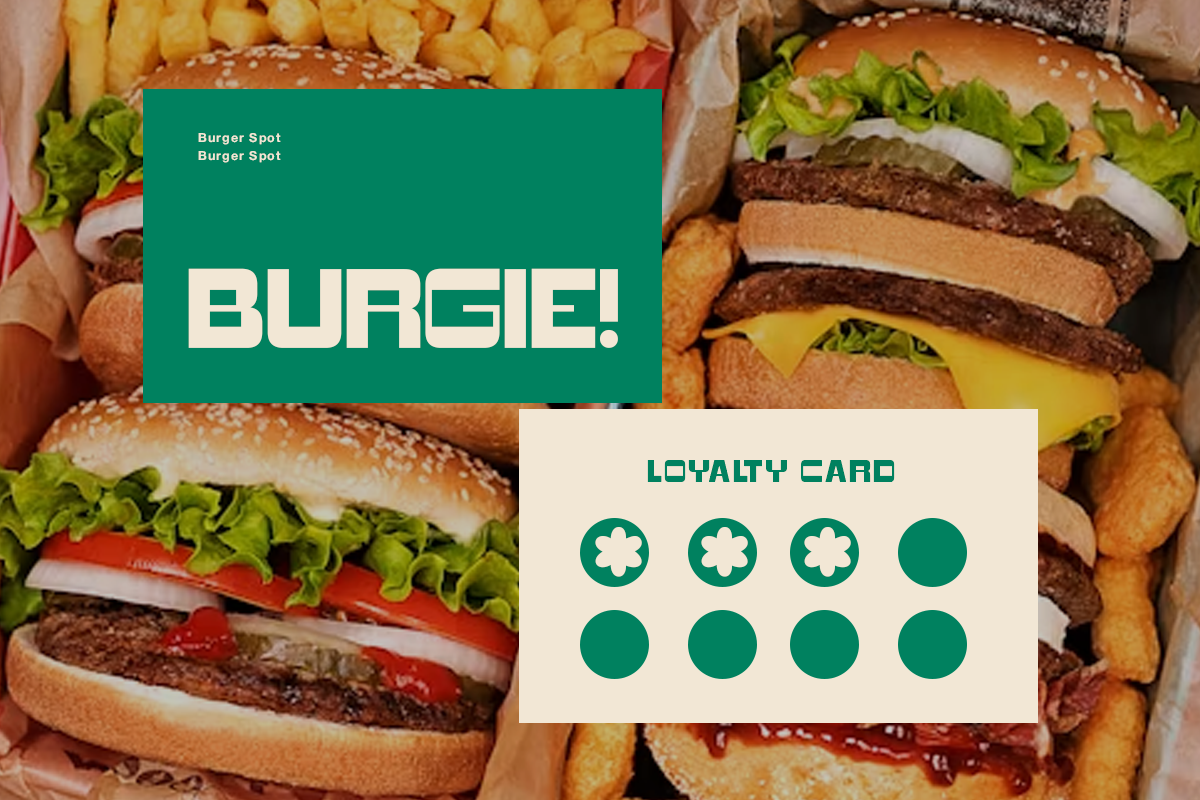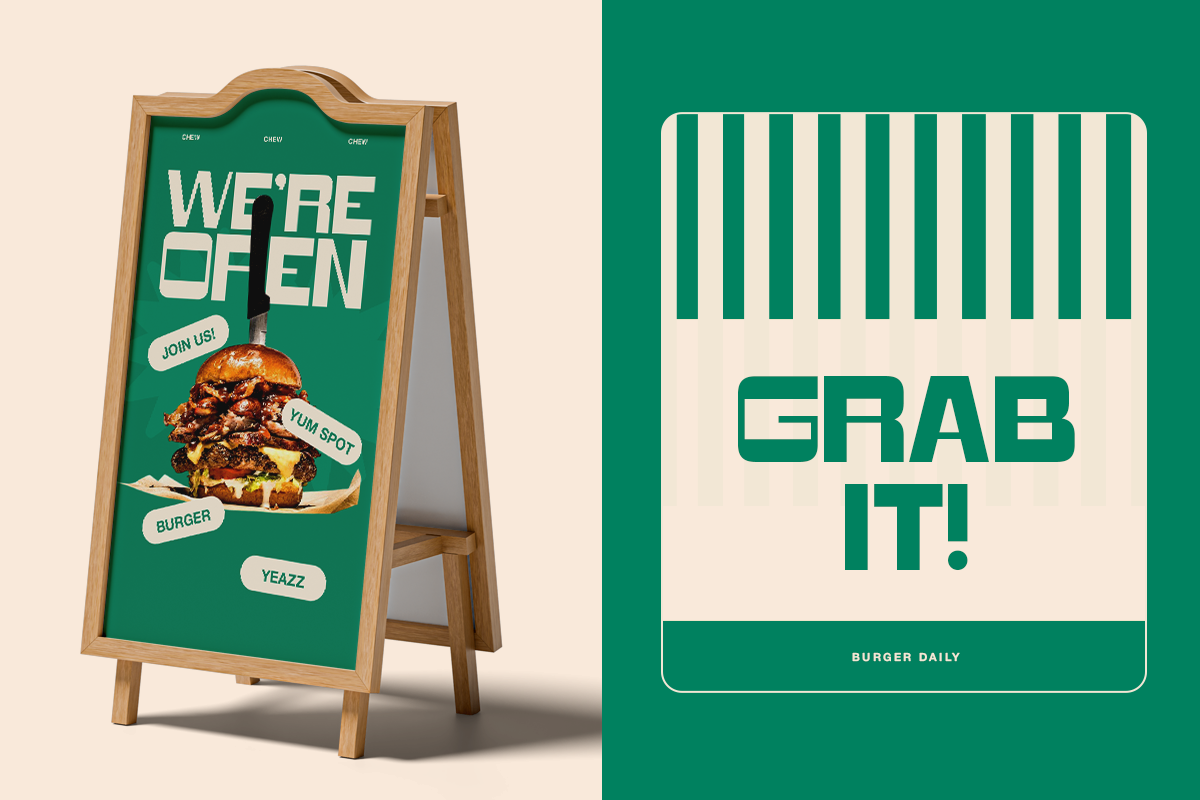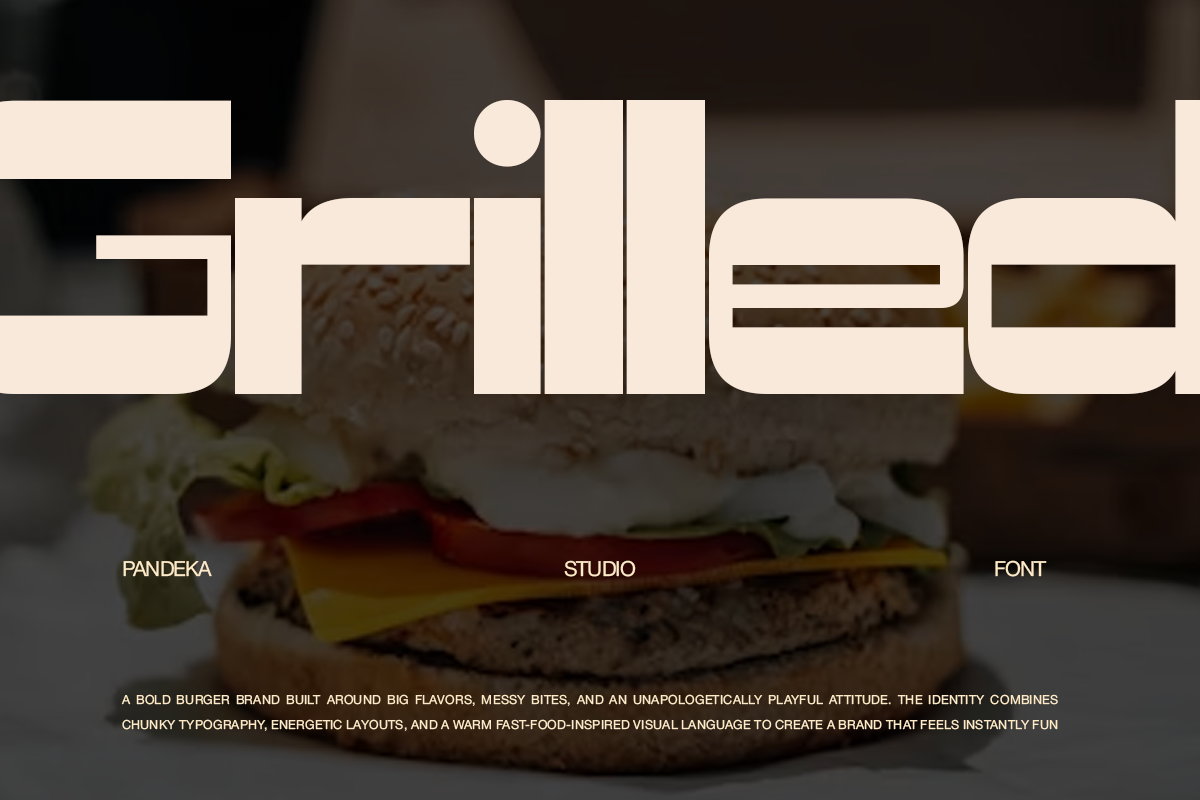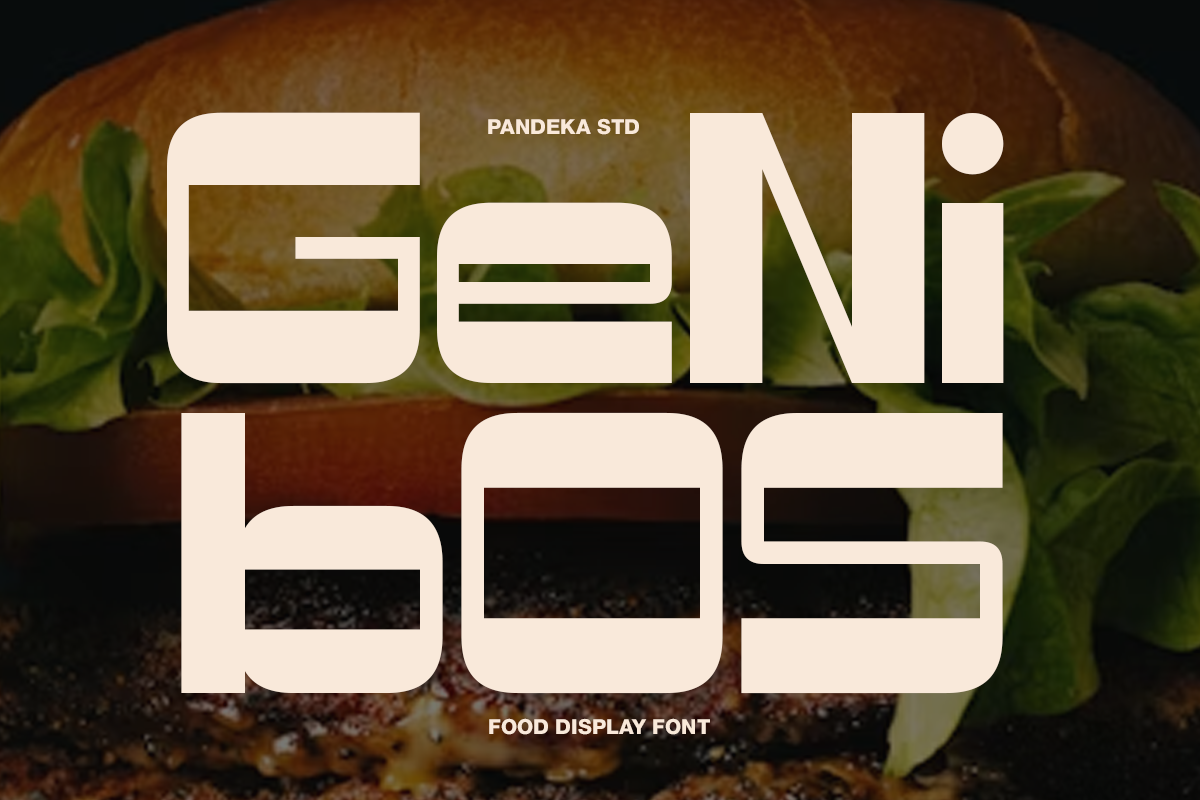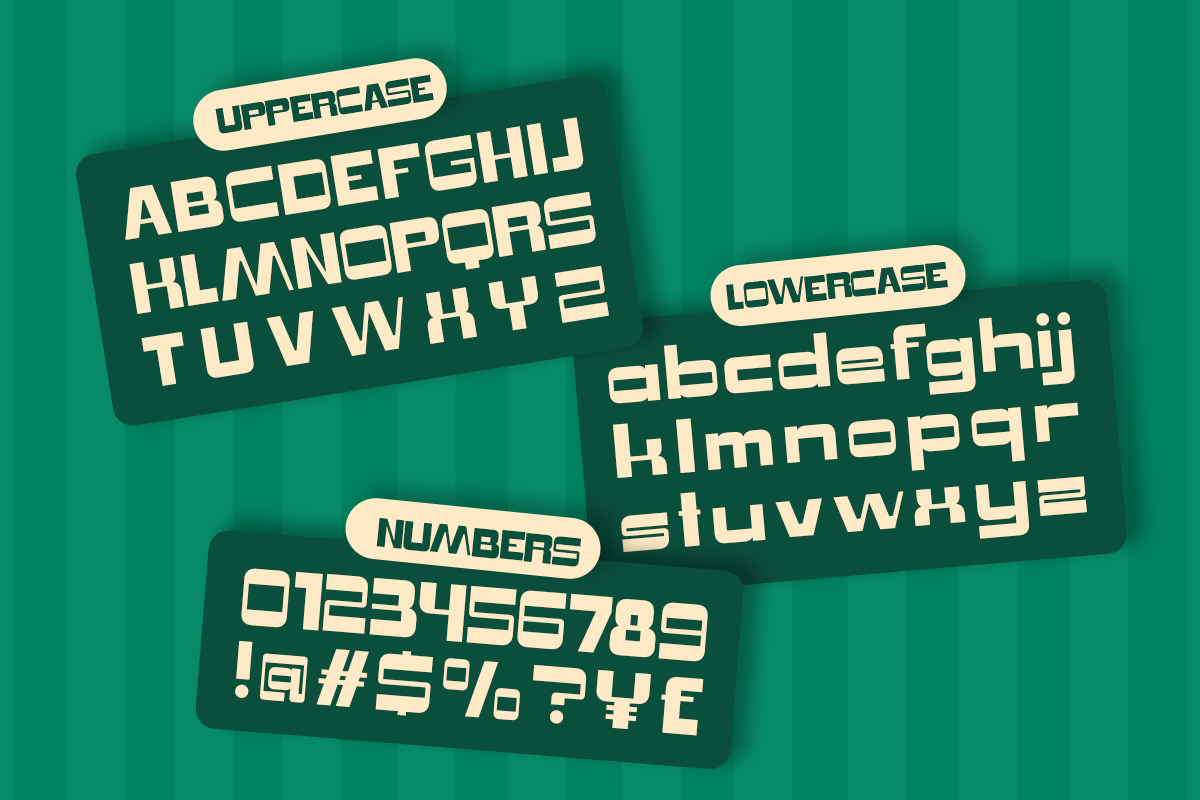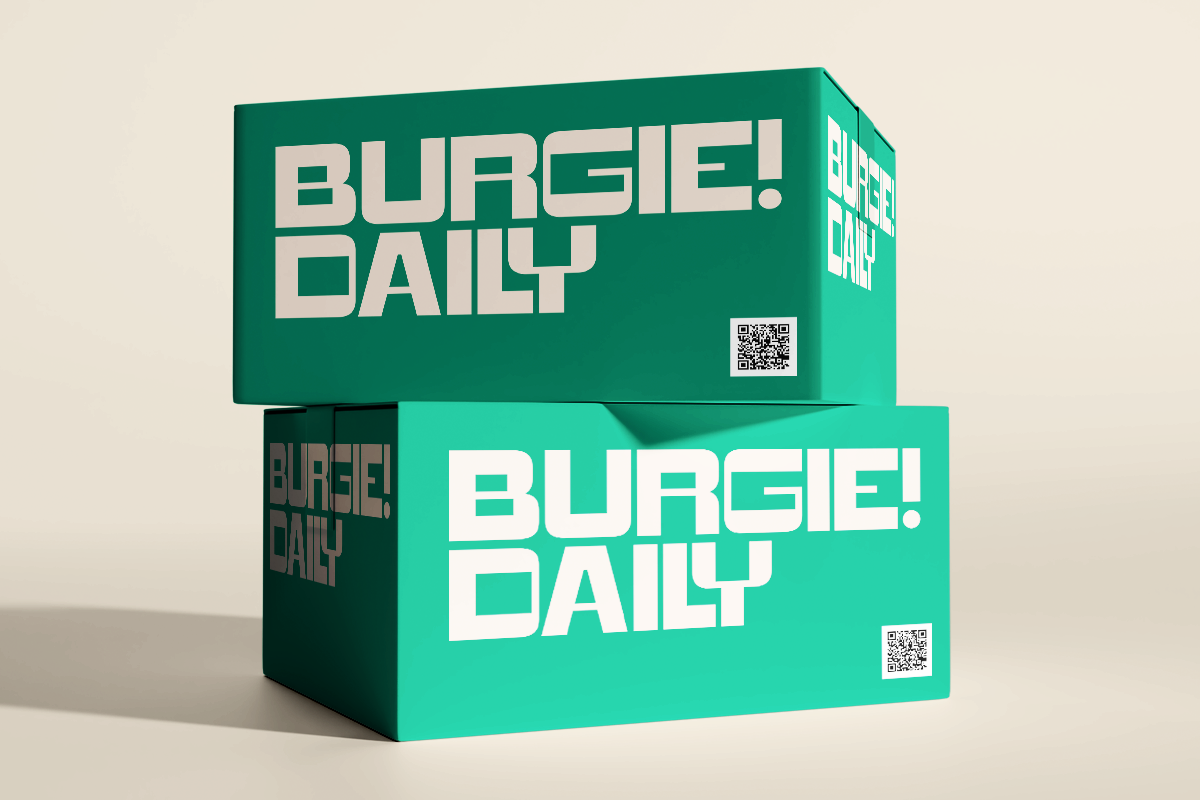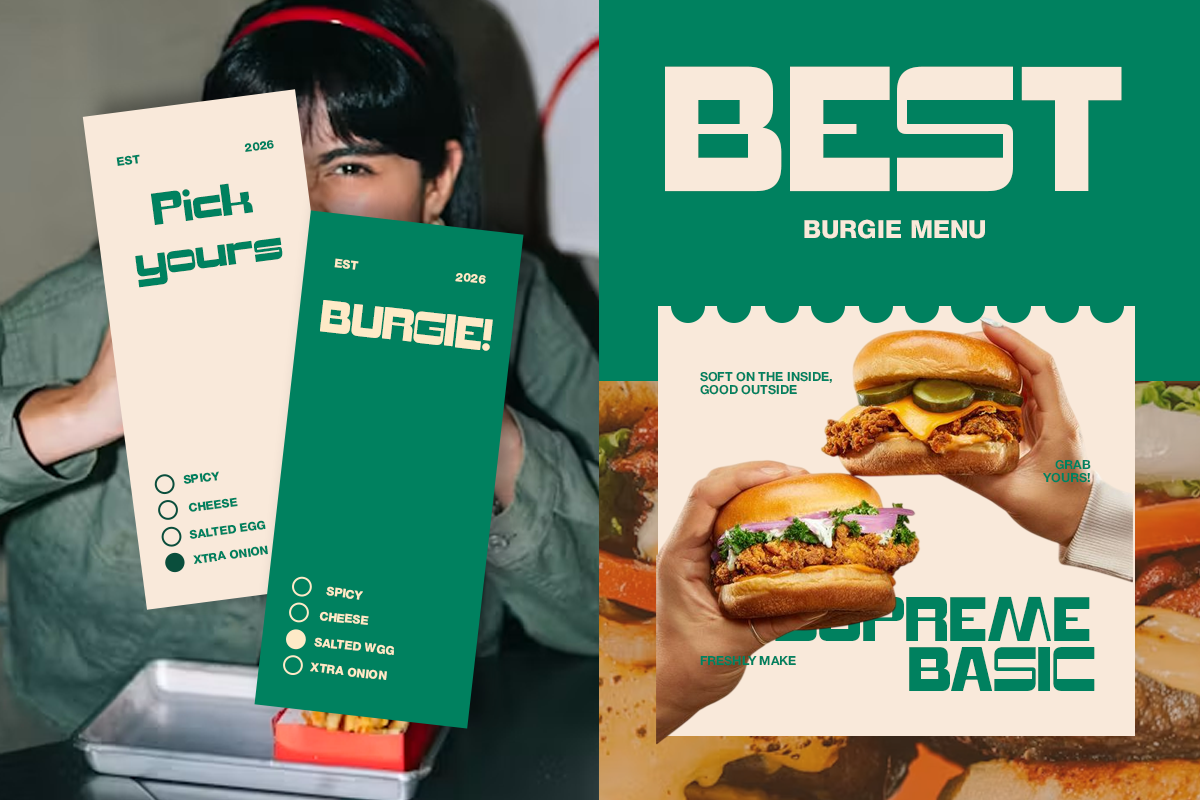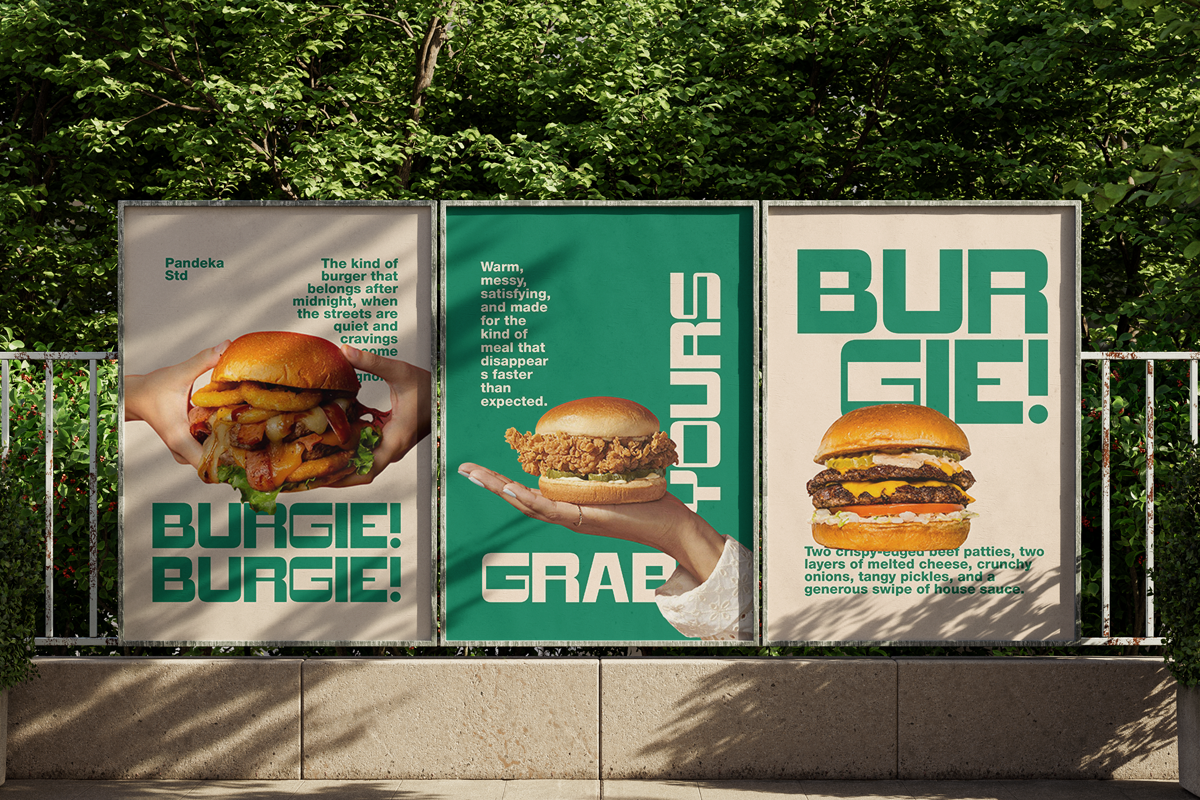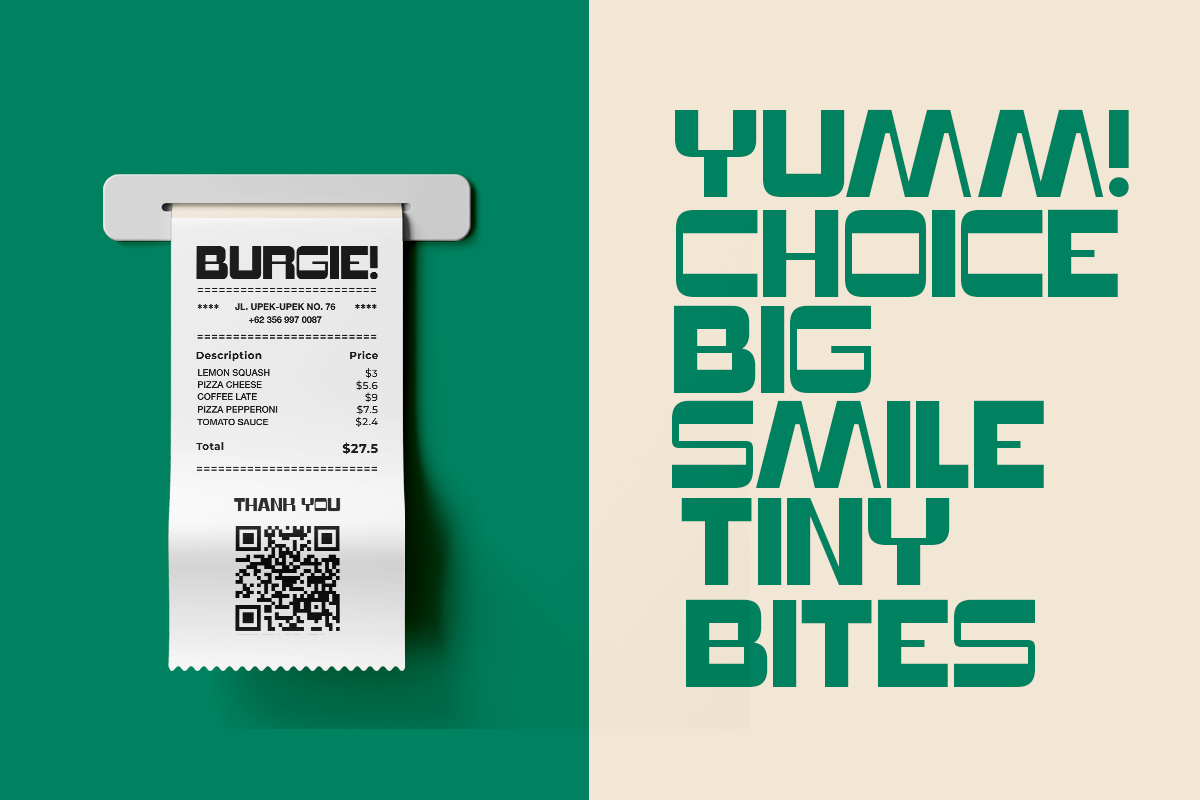
Genibos - Food Display Font
Genibos is a bold food display font designed to give food-related designs a strong, modern, and energetic personality. Featuring chunky geometric letterforms, distinctive shapes, and a compact visual style, it creates an eye-catching presence that works especially well for burgers, restaurants, fast food, menus, packaging, and bold food branding.
Available in 1 style: Regular, Genibos includes 30+ alternates and is suitable for food logos, burger branding, restaurant identity, menu designs, food packaging, product labels, posters, signage, social media graphics, promotional materials, stickers, food trucks, and advertising. Its bold display character adds a distinctive and memorable look to both print and digital designs.
Full Character Set: Uppercase, lowercase, numbers, symbols, and punctuation
30+ Unique Alternates